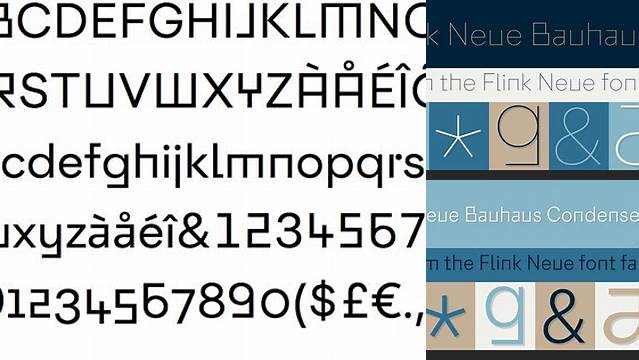
Hey guys! Are you on the hunt for a font that screams modernism and geometric elegance? Look no further! The Flink Neue Bauhaus font is exactly what you need. This font, inspired by the iconic Bauhaus design movement, is a fantastic choice for a wide range of projects. Whether you're designing a sleek website, crafting eye-catching posters, or even working on branding materials, Flink Neue Bauhaus can add that touch of sophistication and minimalist charm. In this article, we'll dive deep into the world of Flink Neue Bauhaus, exploring its history, design characteristics, and most importantly, how you can get your hands on it for free. So, buckle up and let's get started!
What is Flink Neue Bauhaus Font?
First things first, let's understand what makes Flink Neue Bauhaus font so special. This typeface is a contemporary interpretation of the Bauhaus aesthetic, a design philosophy that emerged in the early 20th century. The Bauhaus movement emphasized clean lines, geometric shapes, and functionality, aiming to bridge the gap between art and industry. Flink Neue Bauhaus embodies these principles perfectly, offering a clean, sans-serif design that is both visually appealing and highly legible. The font's geometric structure gives it a strong, modern feel, making it ideal for projects that require a sense of clarity and precision. Think about logos, headlines, and even body text – Flink Neue Bauhaus can handle it all with grace. Its versatility stems from its balanced proportions and careful attention to detail, ensuring that each character complements the others seamlessly. Moreover, the font's clean aesthetic makes it incredibly adaptable to various design styles, from minimalist to industrial. You can pair it with bold colors for a striking contrast or use it in a monochromatic palette for a subtle, sophisticated look. Whether you're a seasoned designer or just starting out, Flink Neue Bauhaus is a valuable addition to your font library.
Key Characteristics of Flink Neue Bauhaus
When we talk about the key characteristics of the Flink Neue Bauhaus font, several aspects stand out. Firstly, its geometric structure is the most prominent feature. Each letterform is built upon simple geometric shapes like circles, squares, and triangles, giving the font a very structured and clean appearance. This geometric foundation is a direct nod to the Bauhaus movement's emphasis on functionality and simplicity. Secondly, the font boasts excellent legibility. Despite its geometric nature, Flink Neue Bauhaus is designed to be easily readable in various sizes and contexts. This makes it suitable for both display purposes, such as headlines and logos, and body text. The consistent stroke weight and clear letterforms ensure that the text remains legible even at smaller sizes. Thirdly, versatility is a major strength. Flink Neue Bauhaus works well in a wide range of design projects, from web design and branding to print materials. Its modern, minimalist aesthetic makes it a great choice for contemporary designs, while its clean lines allow it to blend seamlessly with more traditional styles as well. Fourthly, the font exudes a sense of modernity and sophistication. Its clean, geometric design gives it a very contemporary feel, making it perfect for projects that need to convey a sense of innovation and forward-thinking. At the same time, the font's balanced proportions and careful detailing lend it an air of sophistication and elegance. Lastly, Flink Neue Bauhaus often includes multiple weights and styles, providing designers with a wide range of options to choose from. This allows for greater flexibility in design and ensures that the font can be used effectively in a variety of contexts. From light and airy to bold and impactful, Flink Neue Bauhaus offers a stylistic range that can meet the demands of any project.
Why Choose Flink Neue Bauhaus?
So, why should you specifically choose Flink Neue Bauhaus over other fonts? There are several compelling reasons. First and foremost, its aesthetic appeal is undeniable. The font's clean, geometric design makes it visually striking and highly memorable. It's the kind of font that can instantly elevate the look and feel of your project, adding a touch of modern sophistication. Secondly, Flink Neue Bauhaus is incredibly versatile. As we've discussed, it works well in a variety of design contexts, from websites and logos to posters and brochures. This versatility makes it a valuable asset for any designer, as it can be used across a wide range of projects. Thirdly, the font's legibility is a major advantage. Unlike some more decorative fonts, Flink Neue Bauhaus is designed with readability in mind. This means that your text will be clear and easy to read, regardless of the size or medium. Fourthly, choosing Flink Neue Bauhaus allows you to tap into the legacy of the Bauhaus movement. By using this font, you're aligning your work with a design philosophy that has had a profound impact on the world of art and design. This can add a certain level of credibility and sophistication to your projects. Lastly, and perhaps most importantly for many, Flink Neue Bauhaus is often available for free (at least in some versions or weights). This makes it an accessible option for designers of all levels, from students and hobbyists to professionals working on a budget. In a world where high-quality fonts can be expensive, finding a free option that doesn't compromise on quality is a huge win.